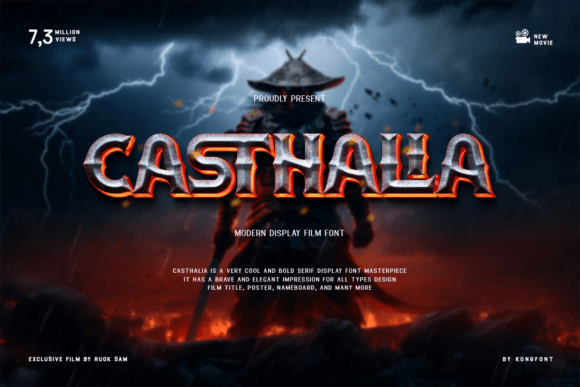
Casthalia Display Font for Professional Branding
If you run a small business—whether it’s a handmade soap studio, a neighborhood café, a wellness coaching practice, or an online boutique—you know how much first impressions matter. And one of the quietest, most powerful tools in your branding toolkit is your typeface. Casthalia isn’t just another decorative font. It’s a display font built for impact: sharp, cinematic, and unmistakably confident. Designed to command attention without sacrificing clarity, Casthalia helps your brand feel intentional, polished, and memorable—even before someone reads a single word.
What makes Casthalia stand out is its balance of drama and discipline. The letterforms are dynamic—slightly angled, with clean cuts and subtle contrast—but never chaotic. It doesn’t shout; it declares. That makes it ideal for moments where your brand needs to land: a logo lockup, a product label, a social media banner, or the headline on your website’s hero section. Think of it as your brand’s “voice” when it’s time to introduce itself—not whisper, but speak with presence.
For real-world use, Casthalia shines brightest at larger sizes and in high-contrast settings. On a matte-finish candle label? It adds sophistication without looking fussy. Across the top of your café’s chalkboard-style menu board? It gives warmth and energy. As the bold header on your Instagram Story announcing a new collection? It stops the scroll—cleanly, confidently. Because it’s a display font, Casthalia works best for headlines, logos, packaging accents, and short-form messaging—not long paragraphs or body text. That’s not a limitation—it’s smart design alignment.
Consistency builds trust. When your business cards, website banners, product tags, and thank-you notes all share the same strong typographic voice, customers begin to recognize your brand instantly—even out of context. A local bakery might use Casthalia for its logo and seasonal flyer headers, then pair it with a warm, rounded sans serif for ingredient lists and pricing. A boutique owner could apply Casthalia to woven garment tags and window decals, while keeping receipts and email footers in a simple, highly legible sans serif. That kind of thoughtful hierarchy says, “We pay attention to detail,” and that message resonates across every touchpoint.
Readability matters—even in expressive fonts. Casthalia holds up well on mobile screens, printed stickers, and small product labels (think 12–16pt minimum for legibility on physical goods). Its open counters and generous spacing prevent crowding, and its clean terminals avoid visual noise. Still, test it early: print a mock-up of your coffee bag label at actual size. View your Instagram post thumbnail on a phone screen. Try reading your business card under shop lighting. If the letters feel tight, blurry, or overly stylized at small scale, reserve Casthalia for larger applications—and lean on a complementary font for fine print.
Font pairing is where Casthalia truly earns its place in your brand system. Because it’s expressive by nature, it pairs beautifully with understated, highly functional typefaces. Try it with a neutral sans serif like Inter, Poppins, or Montserrat for digital ads and web copy. For a more tactile, artisanal feel—say, on a ceramic studio’s packaging—pair it with a gentle serif like Lora or Playfair Display. The contrast does the work: Casthalia brings character and distinction; its partner brings clarity and calm. Avoid pairing it with other high-contrast or decorative fonts—that dilutes impact and muddies hierarchy.
Practical tip: Start small. Don’t overhaul your entire brand identity in one go. Try Casthalia on one high-visibility asset first—a new product launch banner, your next email subject line graphic, or the header on your About page. See how it feels alongside your current colors and imagery. Does it elevate the mood you want to convey? Does it feel authentic to your business personality? That feedback loop is invaluable—and far more reliable than any trend forecast.
Casthalia won’t replace your strategy—but it will sharpen it. In a crowded marketplace where handmade, local, and values-driven businesses compete for attention, professional presentation isn’t optional. It’s how customers decide whether to pause, look closer, and ultimately choose you. With Casthalia, you’re not just selecting a font. You’re choosing a tone of voice that’s bold but grounded, modern but human, distinctive but dependable. Whether you're printing 500 coasters for your pop-up shop or designing your first Shopify banner, Casthalia helps your brand say what matters—clearly, consistently, and with confidence.
And remember: great typography doesn’t have to be complicated. It just has to serve your business—not the other way around. Casthalia does exactly that.